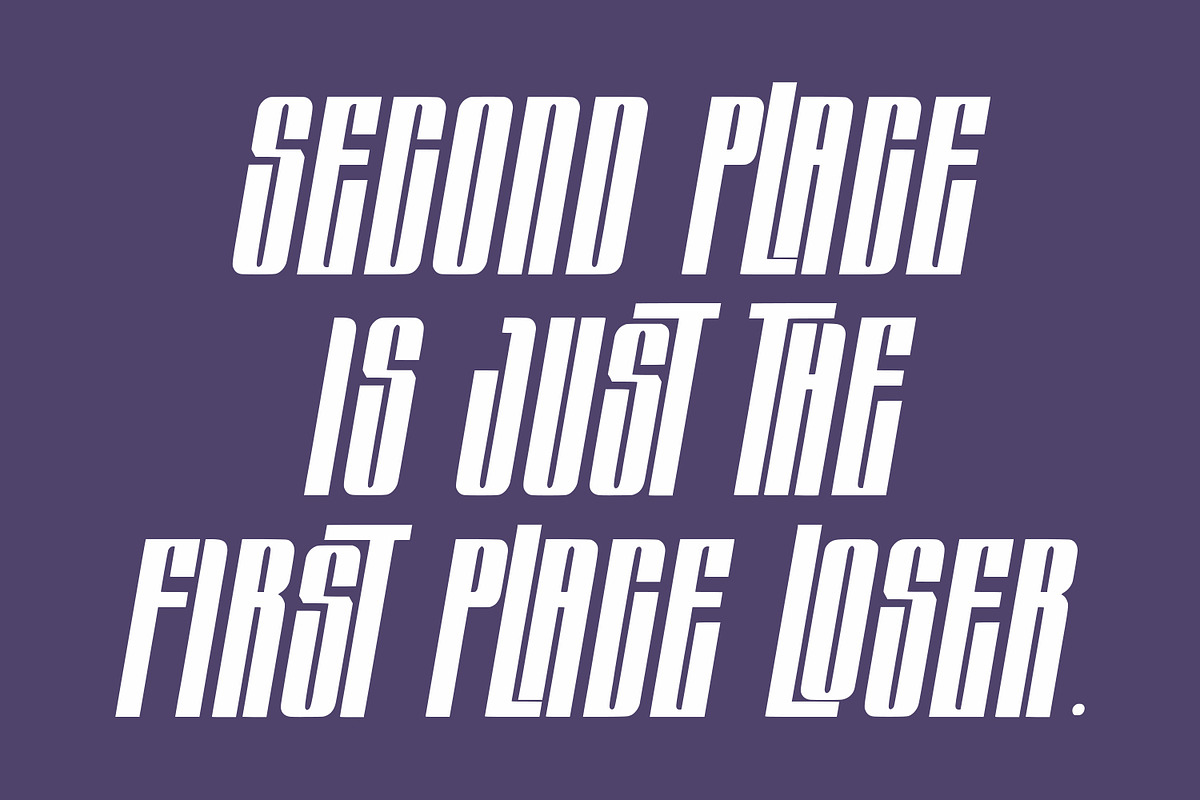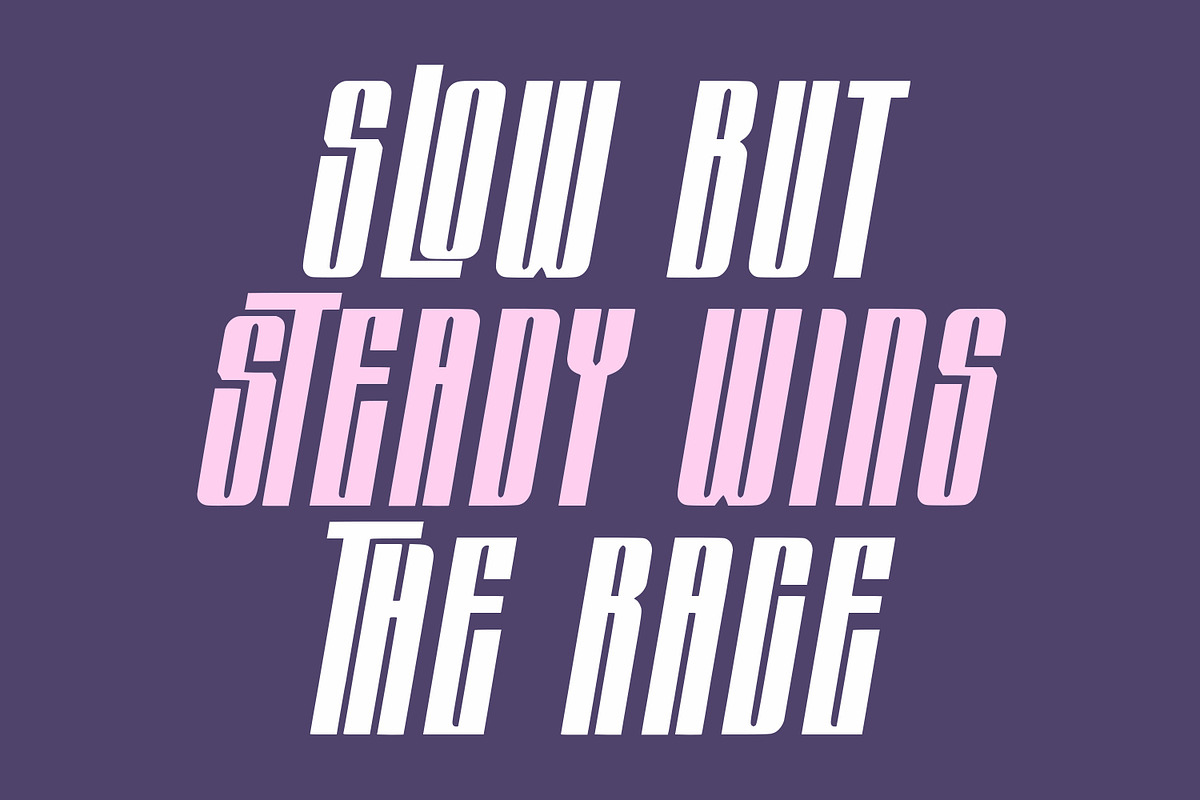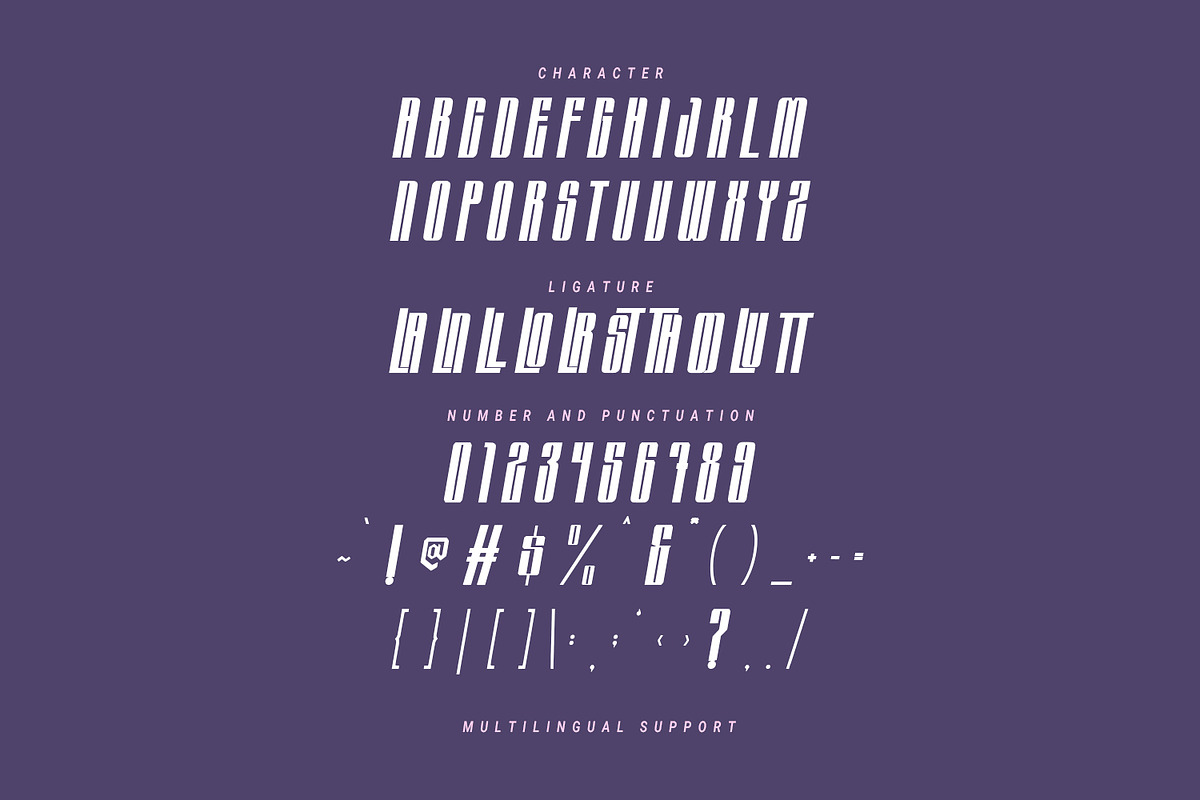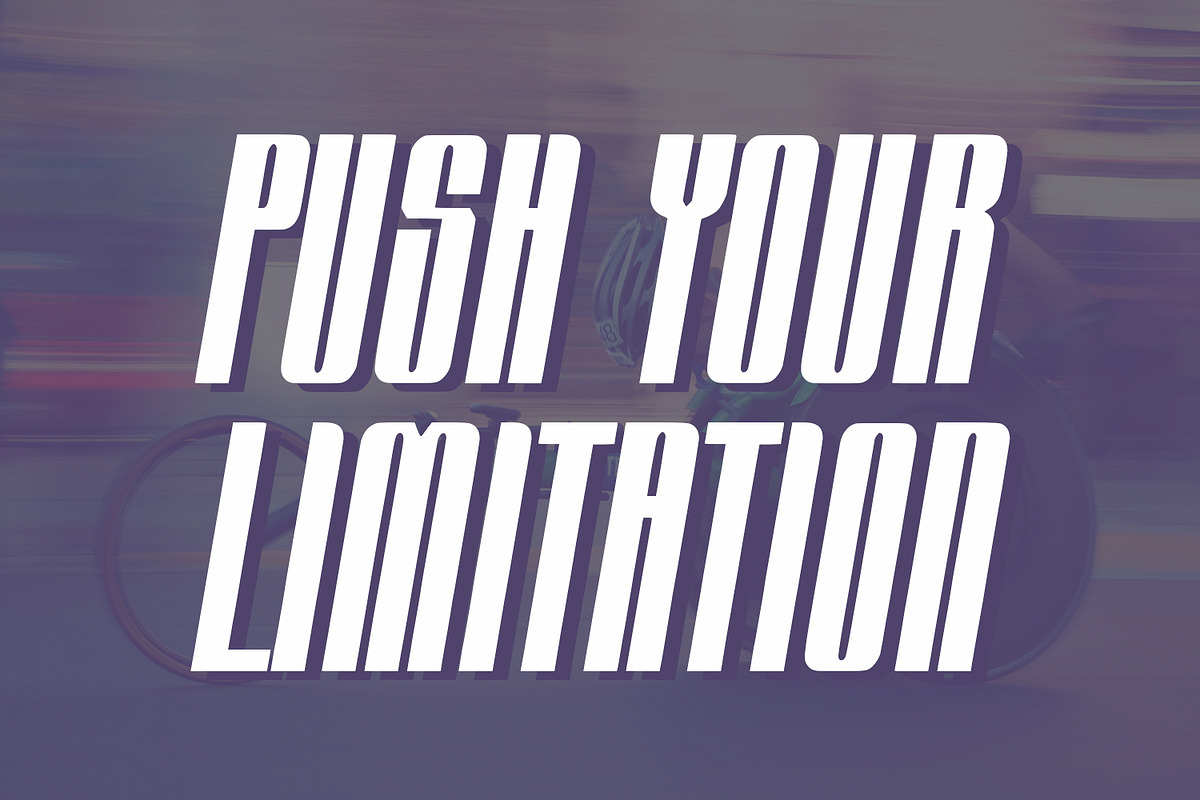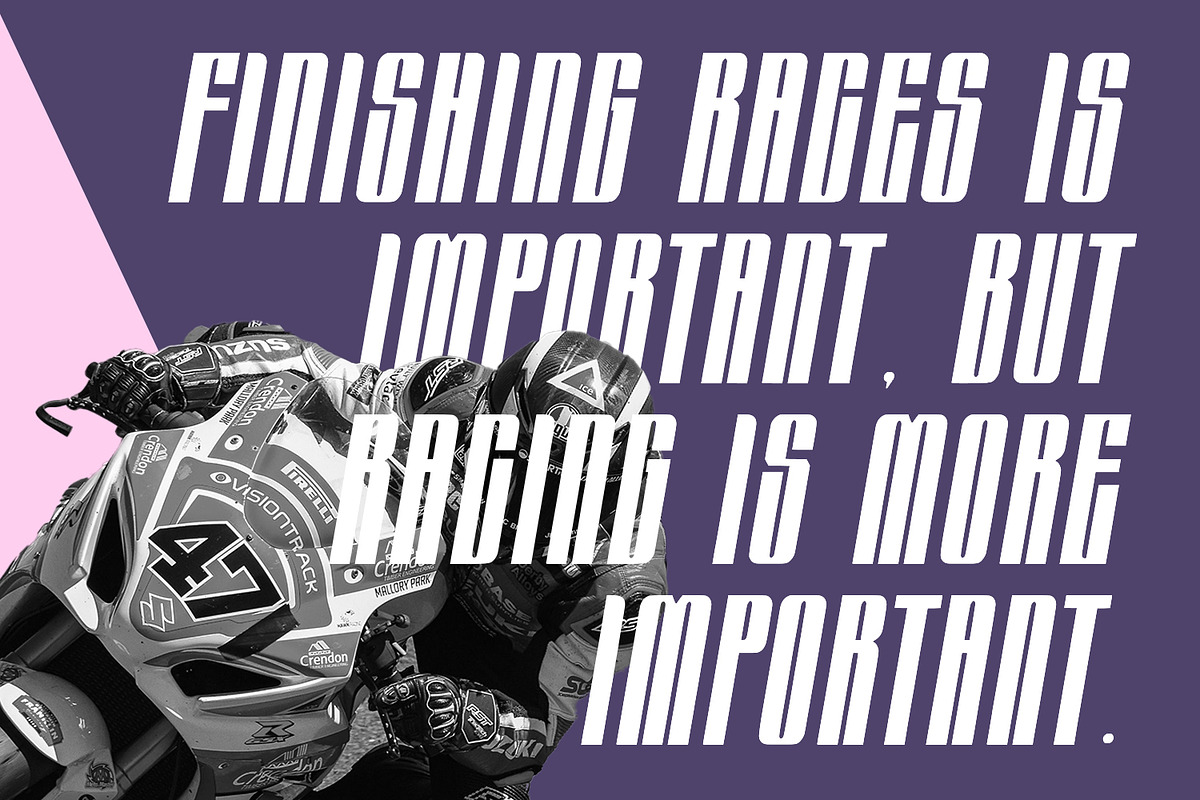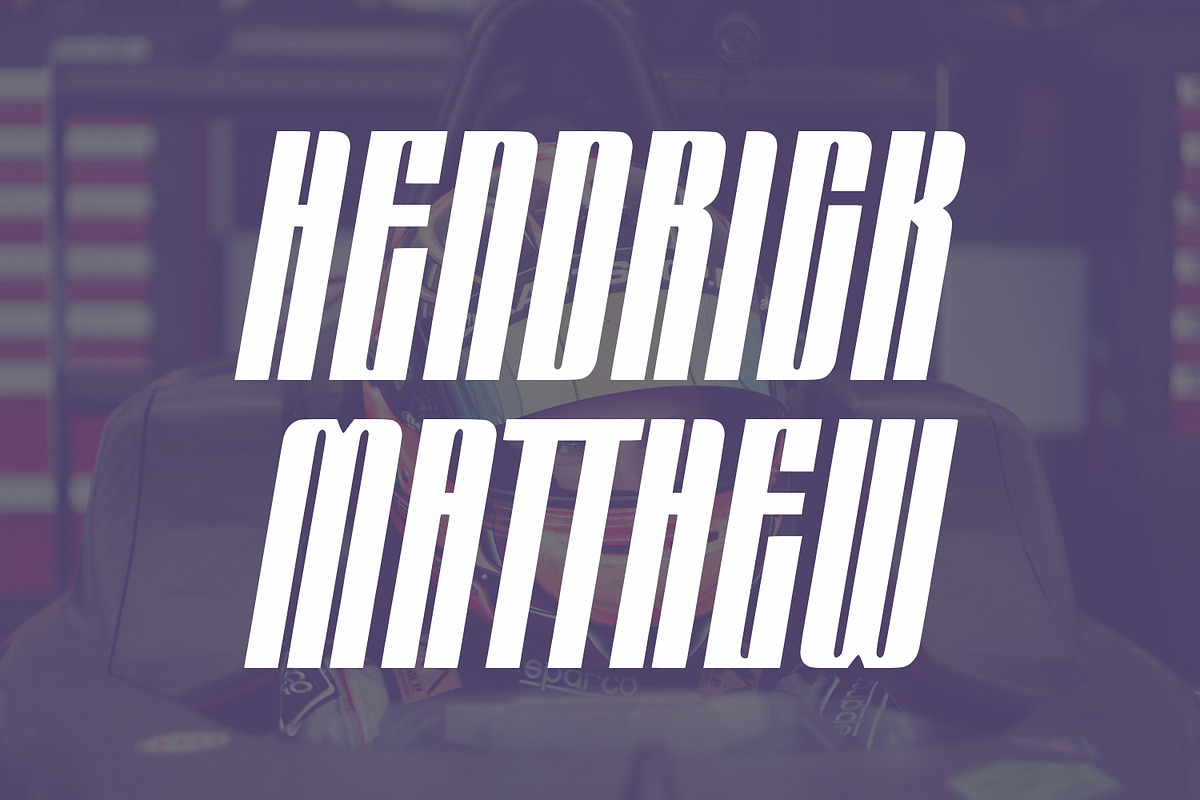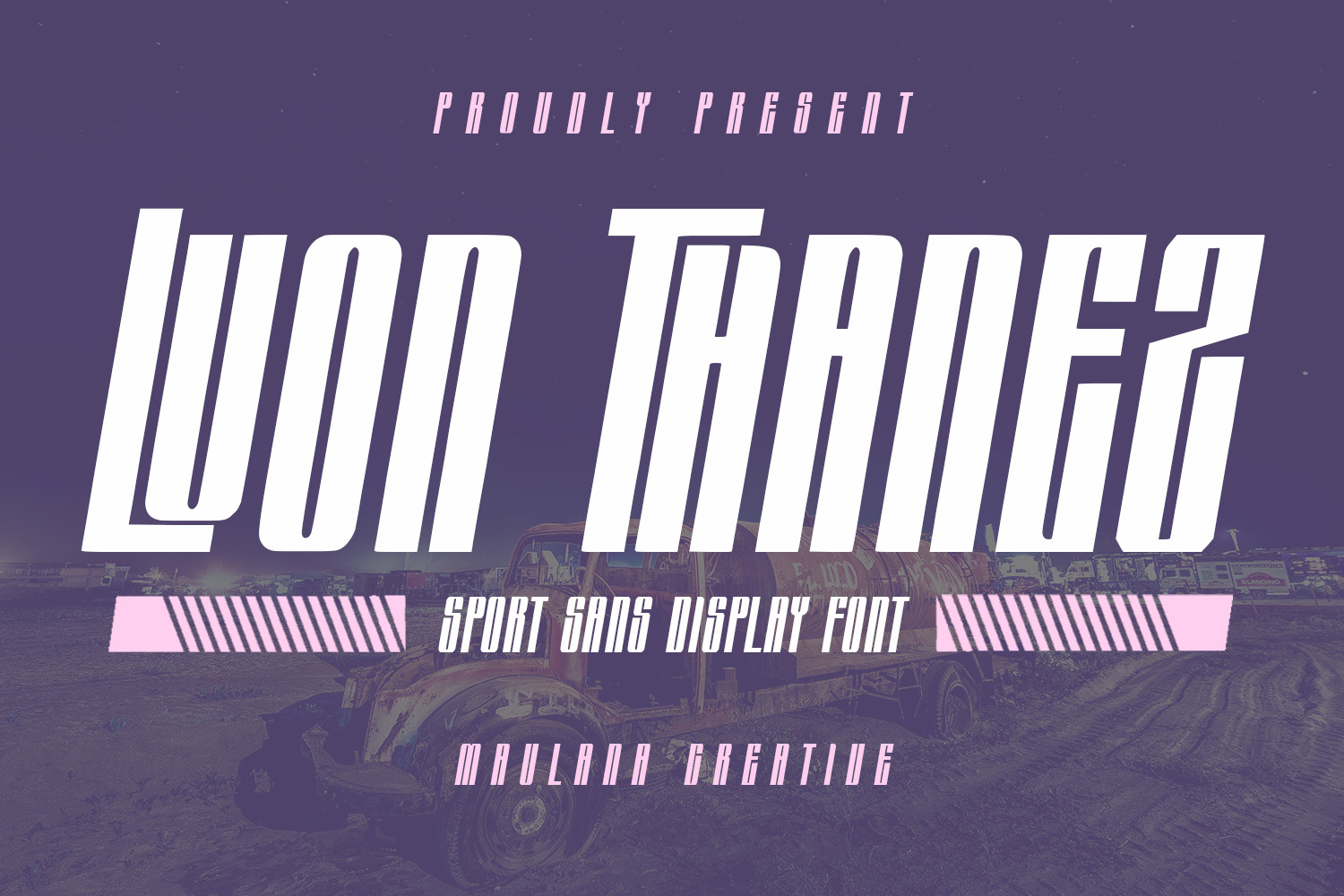
Luon Thanez Sport Sans Display Font
Luon Thanez is a modern sport racing sans font. Fun character with a bit of ligatures. To give you an extra creative work. Luon Thanez font support multilingual more than 100+ language. This font is good for logo design, Social media, Movie Titles, Books Titles, a short text even a long text letter and good for your secondary text font with sans or serif. Make a stunning work with Luon Thanez font.